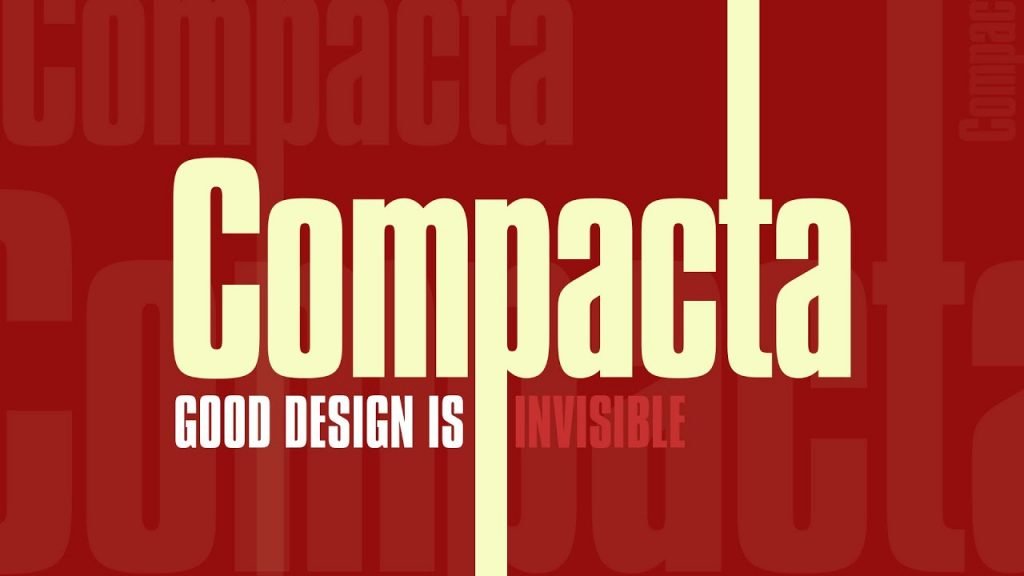
Compacta Font is a condensed sans-serif typeface created by Fred Lambert for Letraset in 1963. When compared to Impact and Haettenschweiler, Compacta has a uniquely square shape.
The letter styling of this typeface is slim in nature and they also have some of the spacing between them that works great with the lego font. This is the fact that makes the content written with this great.
| Name | Compacta Font |
| Style | Sans-serif |
| Designer | Fred Lambert |
- Books
- Event and conference spaces
- Magazines
- Office branding
- Signage
- Signage and trade show displays
- GIFs
- Museum exhibitions
- Menus
- Images for websites and blogs
What Type of Font Is Compacta?
Compacta is one of the best sans serif font that was designed by Fred Lambert in the year 0f 1963.
What's the Closest Font to Compacta?
The Swiss 911 is very close to the Compacta font.